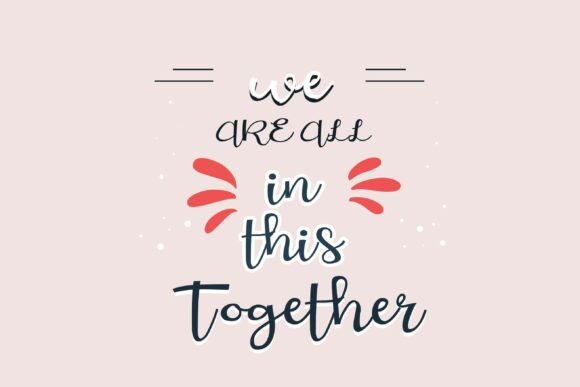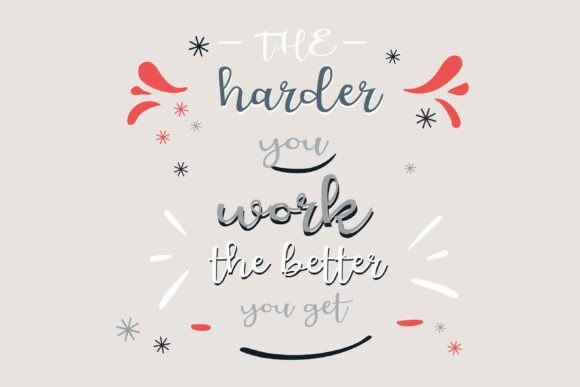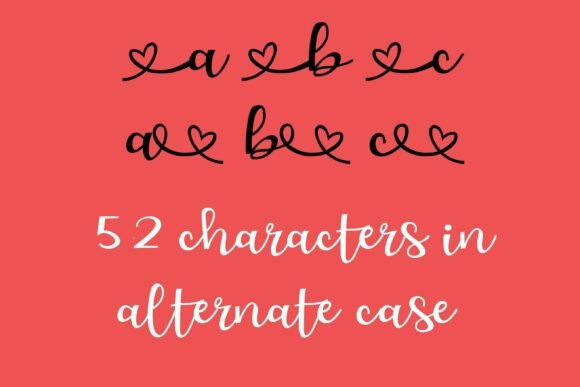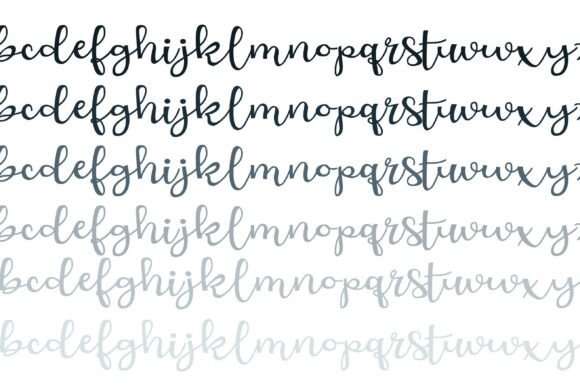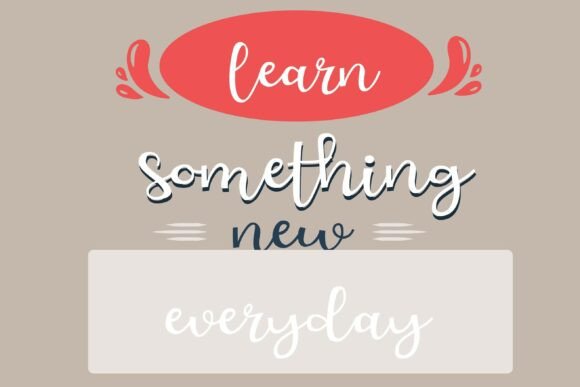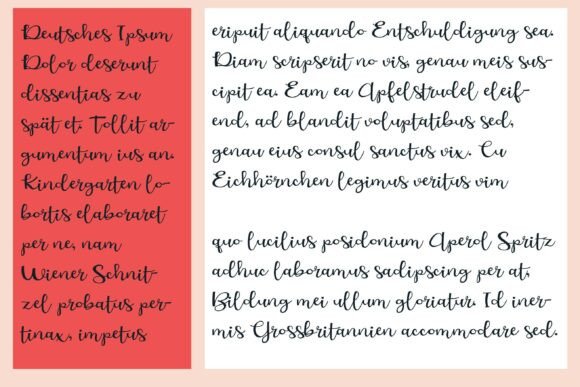
Introduction to Love Branch Font
Love Branches: A Symphony of Elegant Connection Infuse your designs with the delicate grace of nature and romance using the Love Branches font, a handwritten script that feels as natural as a garden in bloom.
This Love Branches typeface is characterized by its fluid, rhythmic strokes and sophisticated ligatures that mimic the winding beauty of tree branches What truly sets the Love Branches font apart are the exquisite heart-shaped flourishes that grow from the beginning and end of each word, creating a visual metaphor for love that takes root and grows.
Key Features of Love Branch Font
Why Choose Love Branch Font?
Love Branch Font offers exceptional quality and versatility, making it a valuable addition to your design toolkit. Whether you’re creating for personal projects or commercial use, Love Branch Font delivers professional results.